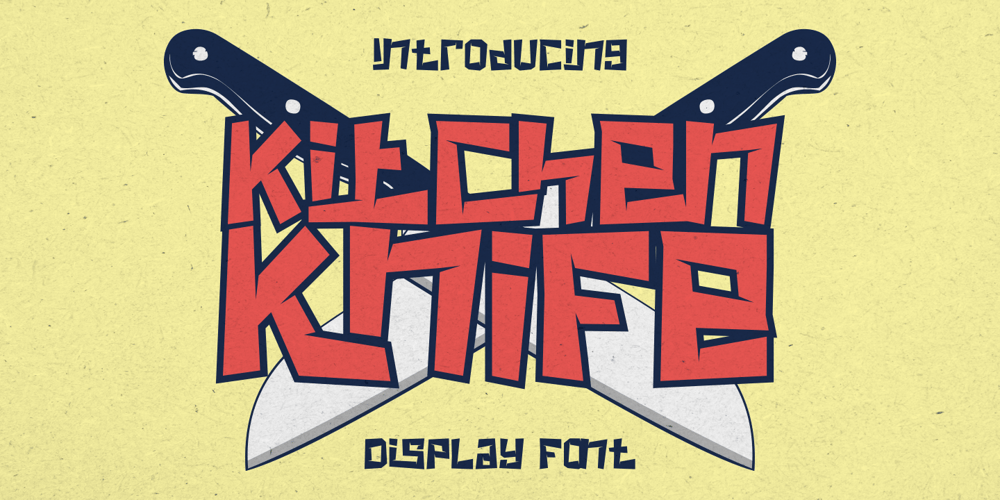
Kitchen Knife Font Family was designed by Putra Novembria Candra Kusuma and published by Putracetol. Kitchen Knife contains 1 styles and family package options. Kitchen Knife – Display Font a bold, quirky display font with a fun, trendy street style vibe. From posters designs to t-shirts and packaging, Kitchen Knife will give your designs that alternative minimal look and make your creative work look supercharged.Kitchen Knife was hand-drawn, making its outlines somewhat irregular and quirky. It has an almost hand-lettered look; the characters jump around the baseline giving it a charming but urban look and feel.With a Kitchen Knife , it will be very suitable for your project, which is related to fun, trendy street style vibe. Such as story books, illustrations, comic books, t-shirts, posters, greeting cards, logos, branding, stickers, svg, crafting.The alternative characters were divided into several Open Type features such as Swash, Stylistic Sets, Stylistic Alternates, Contextual Alternates, and Ligature. The Open Type features can be accessed by using Open Type savvy programs such as Adobe Illustrator, Adobe InDesign, Adobe Photoshop Corel Draw X version, And Microsoft Word. This font is also support multi language.